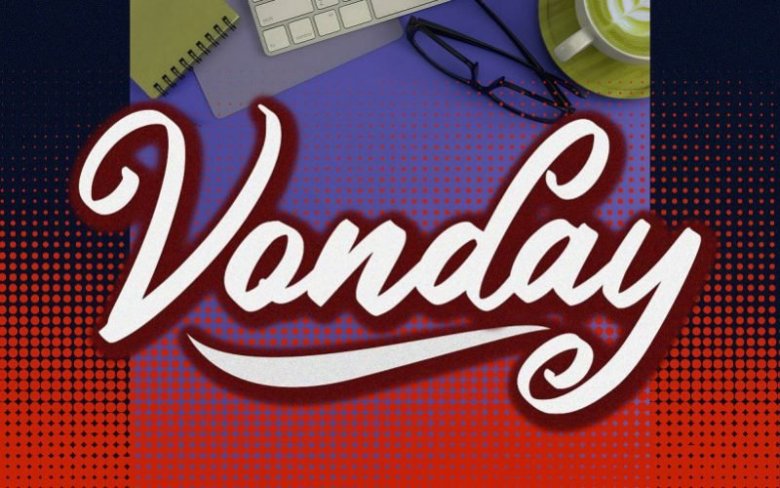
Vonday Script Font
introducing Vonday Font. Created from naturally handwritten. it will make your design more beautiful. it is suitable for logo font, t-shirt printing, and etc.